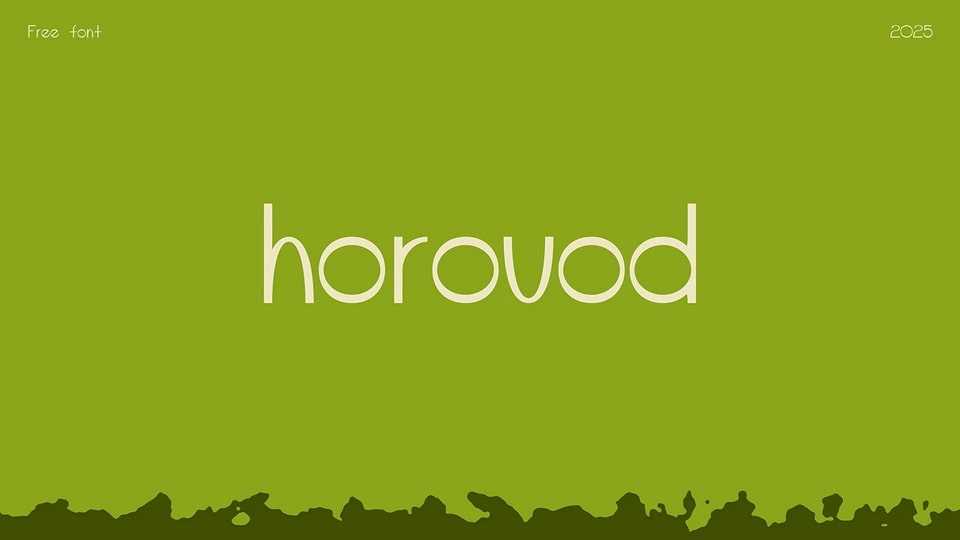
Download Horovod font, a clean, modern sans-serif typeface with a playful twist. Its rounded forms and balanced proportions give it a friendly, approachable personality.
Designer: Nata Georgiadi